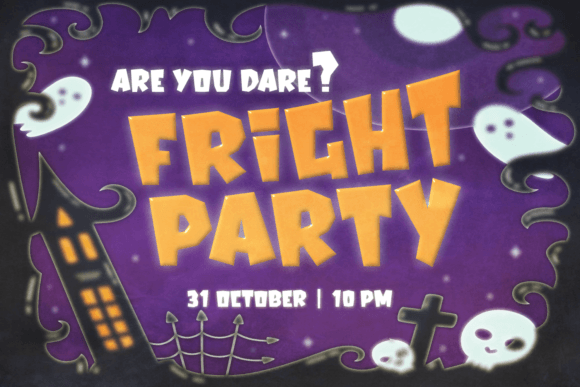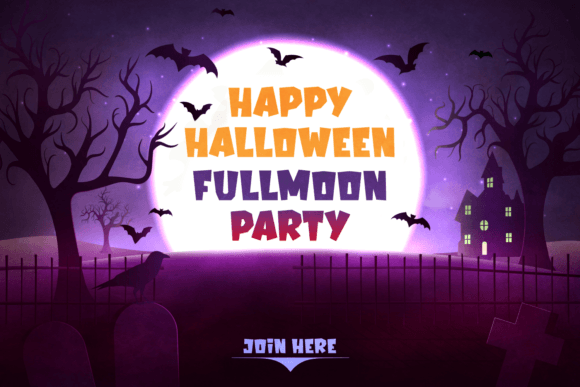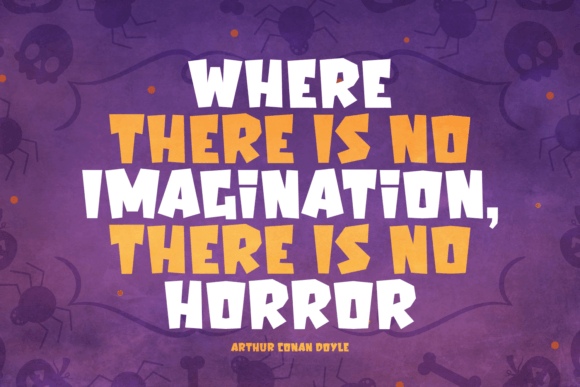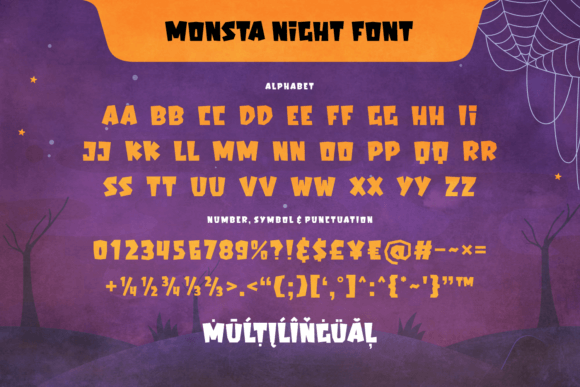
Introduction to Monsta Night Font
Do you remember the moment when you’re working on a creative project and you stumble upon the perfect font that elevates your entire design? For designers, finding that one special font can be a game-changer, and we’re excited to introduce you to the Monsta Night Font.
This intricately designed font is a masterpiece that captures the essence of Halloween, perfect for those who want to add a touch of spooky magic to their designs. With its exceptional readability and high-quality design, Monsta Night Font is an excellent addition to any design resource. Whether you’re working on a festive card, poster design, or intricate project, this font is sure to bring an unworldly magic to your creations.
Key Features of Monsta Night Font
- High-quality, bold design perfect for creative projects and advertisements.
- Unique characteristics include a modern, edgy aesthetic and a wide range of customization options.
- Monsta Night Font is ideal for use in posters, flyers, and other promotional materials where a bold, eye-catching design is required.
Honest Review: Monsta Night Font
I recently had the chance to work with the Monsta Night Font, and I must say it’s a unique addition to any design project. As a design resource, it offers a high quality and creative approach to typography.
- Unique and bold design that grabs attention
- Perfect for creative projects that need a touch of edginess
One of the standout features of the Monsta Night Font is its ability to add a touch of sophistication to any design. Its bold and playful nature makes it perfect for creative projects that need a bit of flair.
- May not be suitable for more conservative or traditional designs
- Limited font styles available, which may limit its versatility
Overall, I’m impressed with the Monsta Night Font and its ability to add a unique touch to any design project. While it may have some limitations, its high quality and creative approach make it a valuable addition to any design resource library.
Monsta Night Font
The Monsta Night Font is a high-quality design resource ideal for creative projects. This versatile font features a transparent background, making it perfect for use in various digital platforms.
Tips for Getting the Most Out of Monsta Night Font
To maximize the potential of the Monsta Night Font, experiment with different font sizes, colors, and styles to create unique and eye-catching designs.
The Monsta Night Font is ideal for use in various creative projects, including social media graphics, blog posts, and marketing materials. Its high-quality design makes it a valuable resource for designers and non-designers alike.